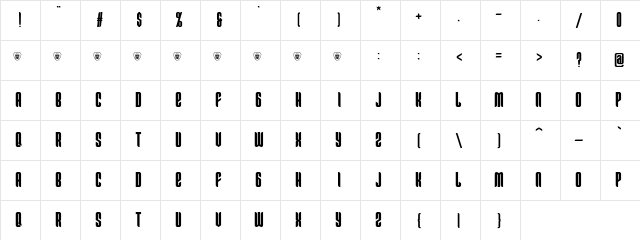
Ok-Esport Regular
Design Context for Ok-Esport Typeface
Ok-Esport has the bold swagger of sports branding: strong, assertive letterforms designed to dominate headlines and jerseys alike.
Built for sports team identities, athletic apparel, event posters, and high-energy promotional material.
Font Pairing: Use alongside a condensed or geometric sans for supporting copy — keep the pairing bold, functional, and free of ornament.
Pro Tip: Ok-Esport thrives on contrast — try it large, bold, and tight against a clean background for maximum visual impact.